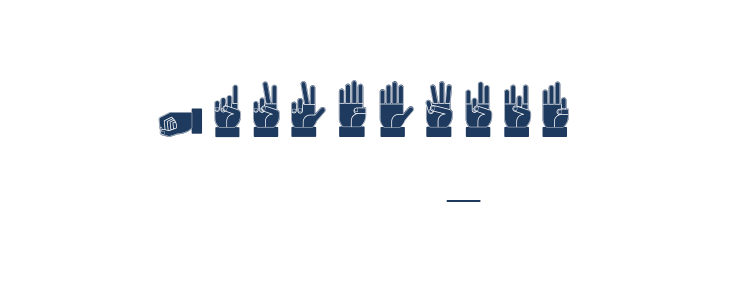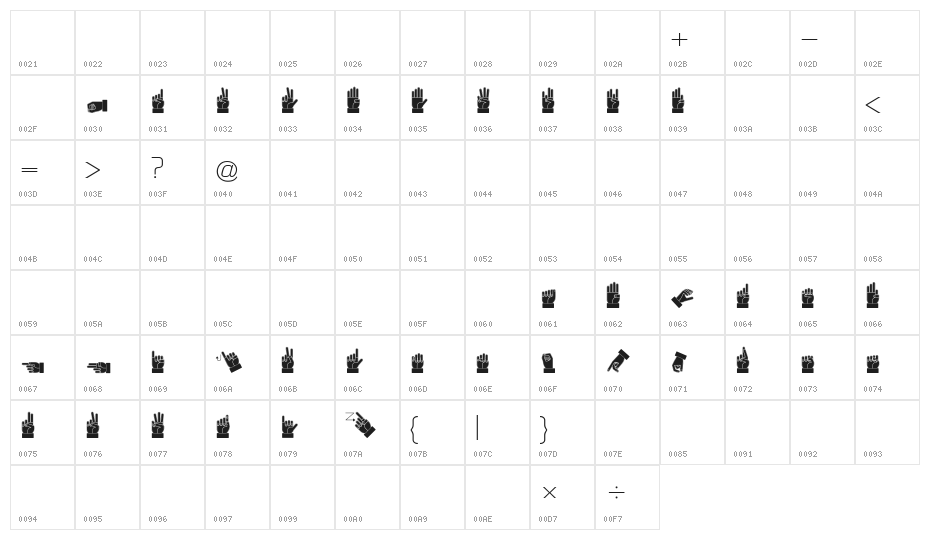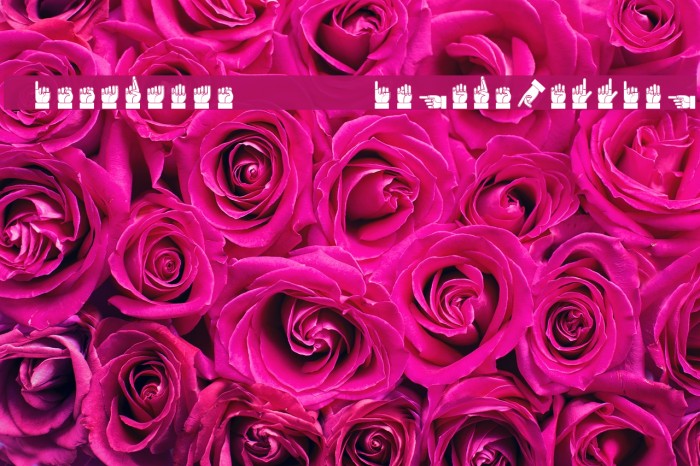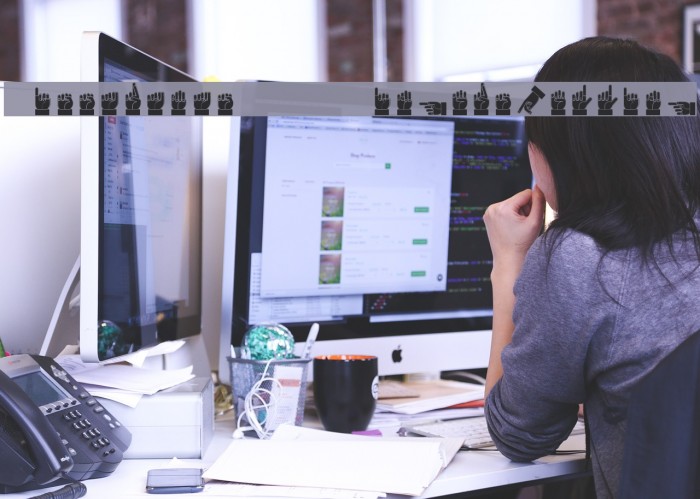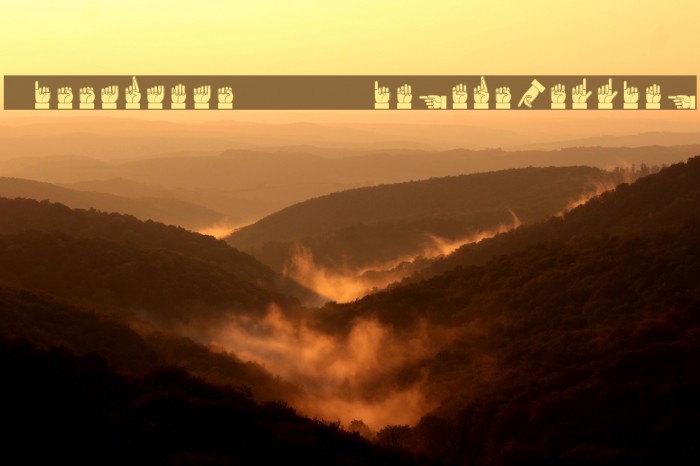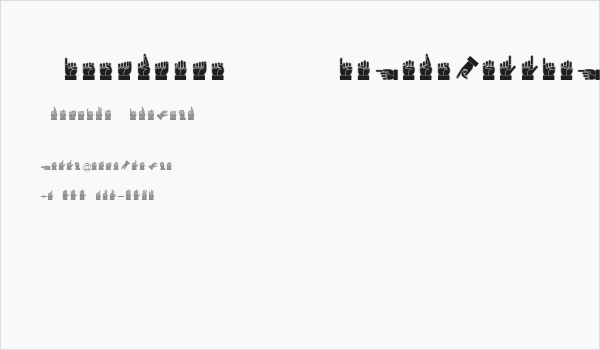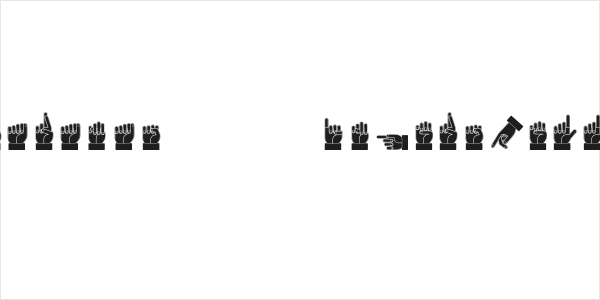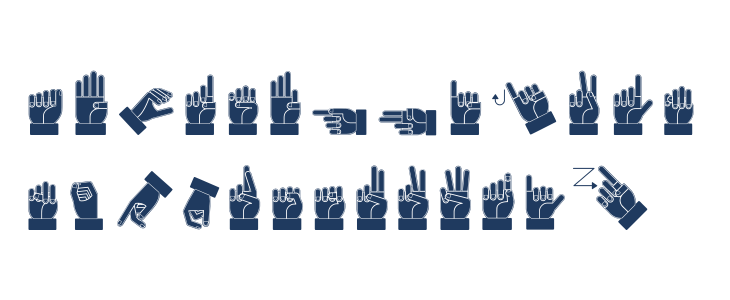
Dissaramas CRU Fingerspelling Font
Dissaramas CRU Fingerspelling Description
This is a unique and visually engaging font that uses hand shapes to represent each letter and number. Each character is depicted as a stylized hand gesture, making it ideal for projects that require a creative and unconventional approach. The design is consistent across all characters, ensuring readability while maintaining its distinctive style. The font is particularly suitable for educational materials, especially those related to sign language or communication. Its bold and clear outlines make it easy to distinguish each character, even at smaller sizes.
Use CaseLogos, Educational materials, Creative projects
Proposed ProjectsEducational materials, sign language resources, creative posters, and communication tools.